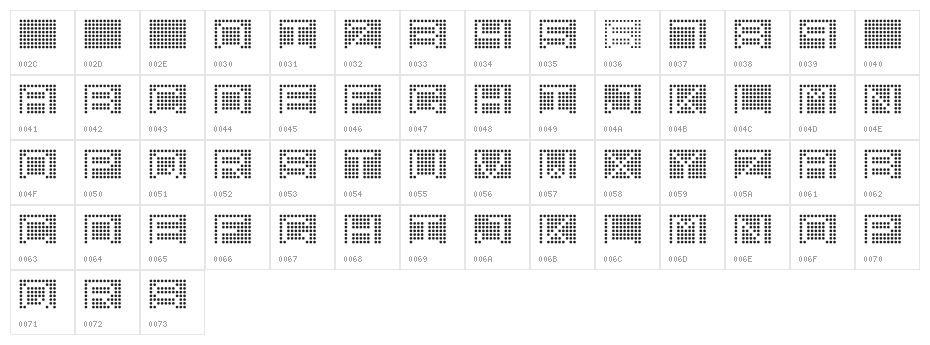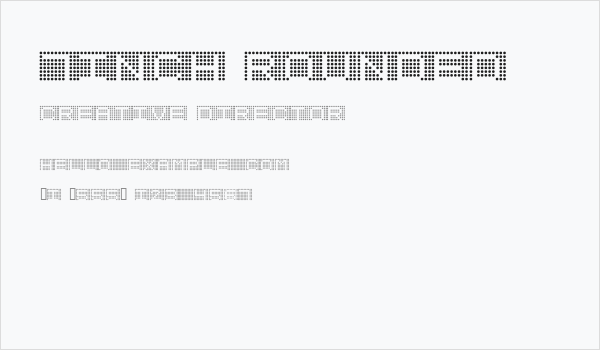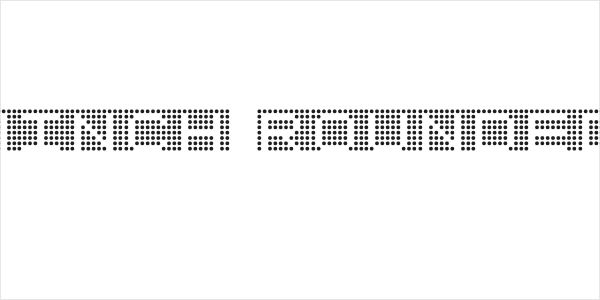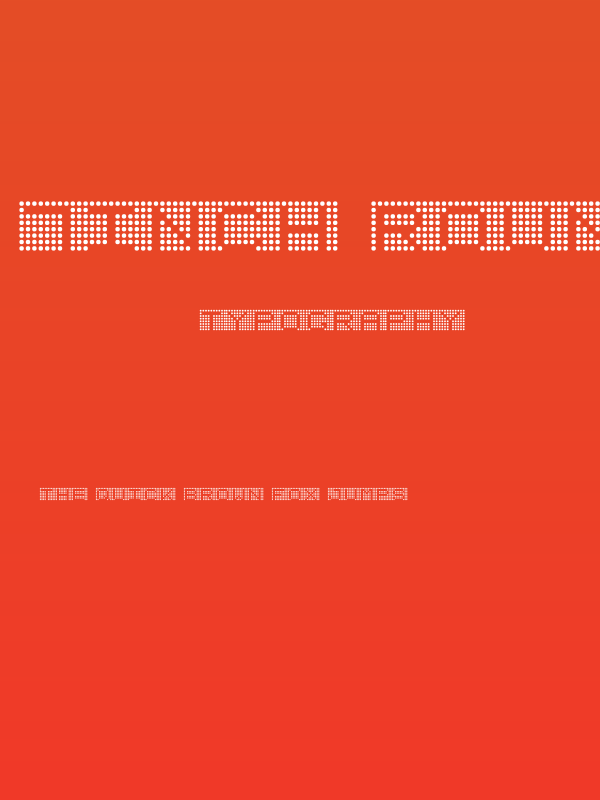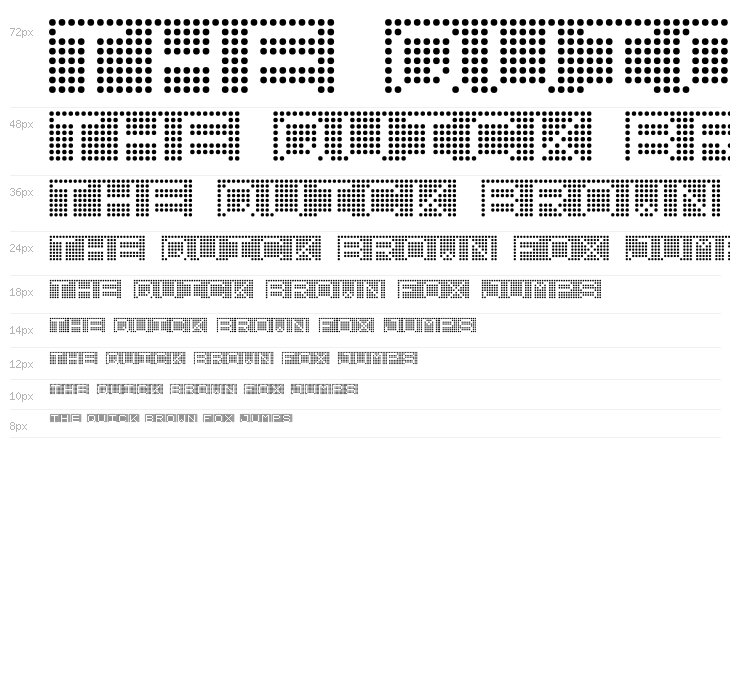
7inch Rounded Font
7inch Rounded Description
This font features a unique dot matrix design, creating characters with a digital, retro aesthetic reminiscent of old LED displays. Each character is composed of a grid of evenly spaced dots, forming a blocky and geometric appearance. The uniformity of the dots gives the font a consistent texture, while the rounded edges of the dots soften the overall look, adding a touch of modernity. This style is particularly eye-catching and stands out in digital and print formats, making it suitable for projects that require a tech-inspired or futuristic theme.
| Proposed Projects | Ideal for digital displays, tech-themed posters, retro video game graphics, and modern art installations. |